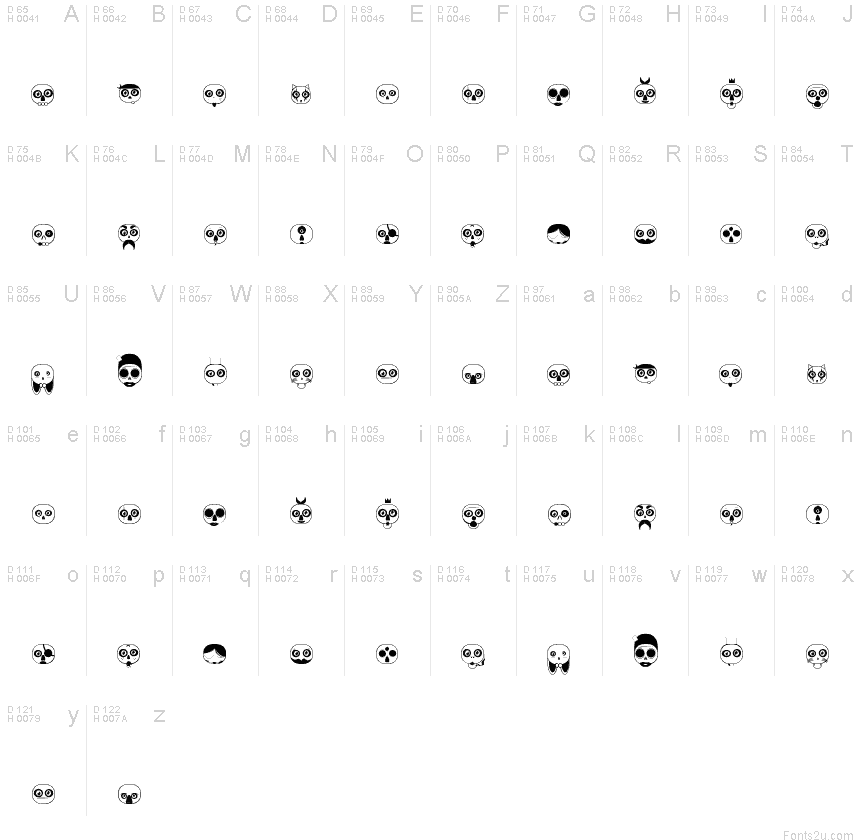
Fluid Death Qkila by Qkila of On The Fluid is a free horror symbol font built around a lively lineup of skull-faced figures. Rounded heads, oversized eye sockets, and small costume details give each character a distinct expression.
Halloween event graphics are its clearest use, with the skulls doubling as cast members across posters and invitations. Merchandise and game interfaces can draw on the same comic macabre imagery. It suits spooky entertainment that favors humor over gore.